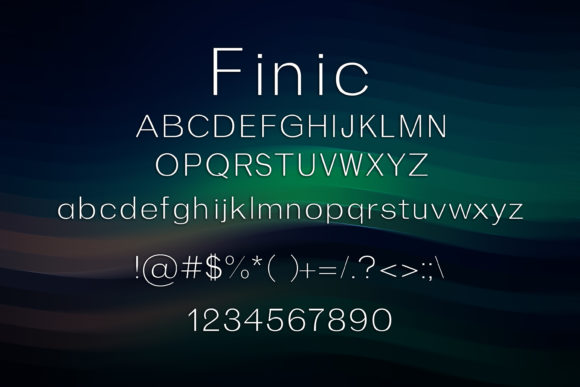
Discover the Unique Style of Finic Font: A Cool Sans Serif for Your Designs
Are you tired of using the same old fonts in your designs? Look no further than Finic Font, a cool sans serif font with a unique style that’s sure to inspire. In this article, we’ll dive into the world of Finic Font and explore its features, benefits, and uses, helping you to get the most out of this amazing font.
What is Finic Font?
Finic Font is a modern sans serif font designed to provide a fresh and distinctive look to your designs. Its unique style sets it apart from other fonts in the sans serif category, making it perfect for designers and crafters looking to add a touch of personality to their work.
Key Features of Finic Font
- Unique Style: Finic Font boasts a one-of-a-kind design that’s both modern and eye-catching.
- Sans Serif: As a sans serif font, Finic Font is perfect for digital and print designs, offering a clean and sleek look.
- Versatile: Finic Font can be used in a wide range of design projects, from branding and advertising to packaging and web design.
- Easily Readable: Despite its unique style, Finic Font remains highly legible, making it suitable for body text and headlines.
Benefits of Using Finic Font
So, why should you choose Finic Font for your next design project? Here are just a few benefits of using this amazing font:
- Adds Personality: Finic Font’s unique style allows you to add a touch of personality to your designs, setting them apart from the crowd.
- Enhances Creativity: With Finic Font, you can experiment with different design ideas and concepts, pushing the boundaries of what’s possible.
- Perfect for Branding: Finic Font’s modern and sleek design makes it an excellent choice for branding and logo design, helping you to create a lasting impression.
Using Finic Font in Your Designs
Now that we’ve explored the features and benefits of Finic Font, let’s discuss how to use it in your designs. Here are a few tips to get you started:
- Pair with Other Fonts: Experiment with pairing Finic Font with other fonts to create a unique and visually appealing combination.
- Play with Sizes: Use Finic Font in different sizes to create visual hierarchy and add emphasis to your design.
- Experiment with Colors: Try out different color schemes with Finic Font to find the perfect combination for your design.
Need some inspiration for your next design project? Here are a few ideas to get you started:
- Branding and Logo Design: Use Finic Font to create a modern and sleek logo that sets your brand apart.
- Web Design: Incorporate Finic Font into your web design to add a touch of personality and style.
- Packaging Design: Use Finic Font to create eye-catching packaging that stands out on store shelves.
In conclusion, Finic Font is a cool sans serif font with a unique style that’s perfect for designers and crafters looking to add a touch of personality to their work. With its versatile design, easily readable characters, and modern look, Finic Font is an excellent choice for a wide range of design projects. So why wait? Get inspired by Finic Font today and take your designs to the next level!